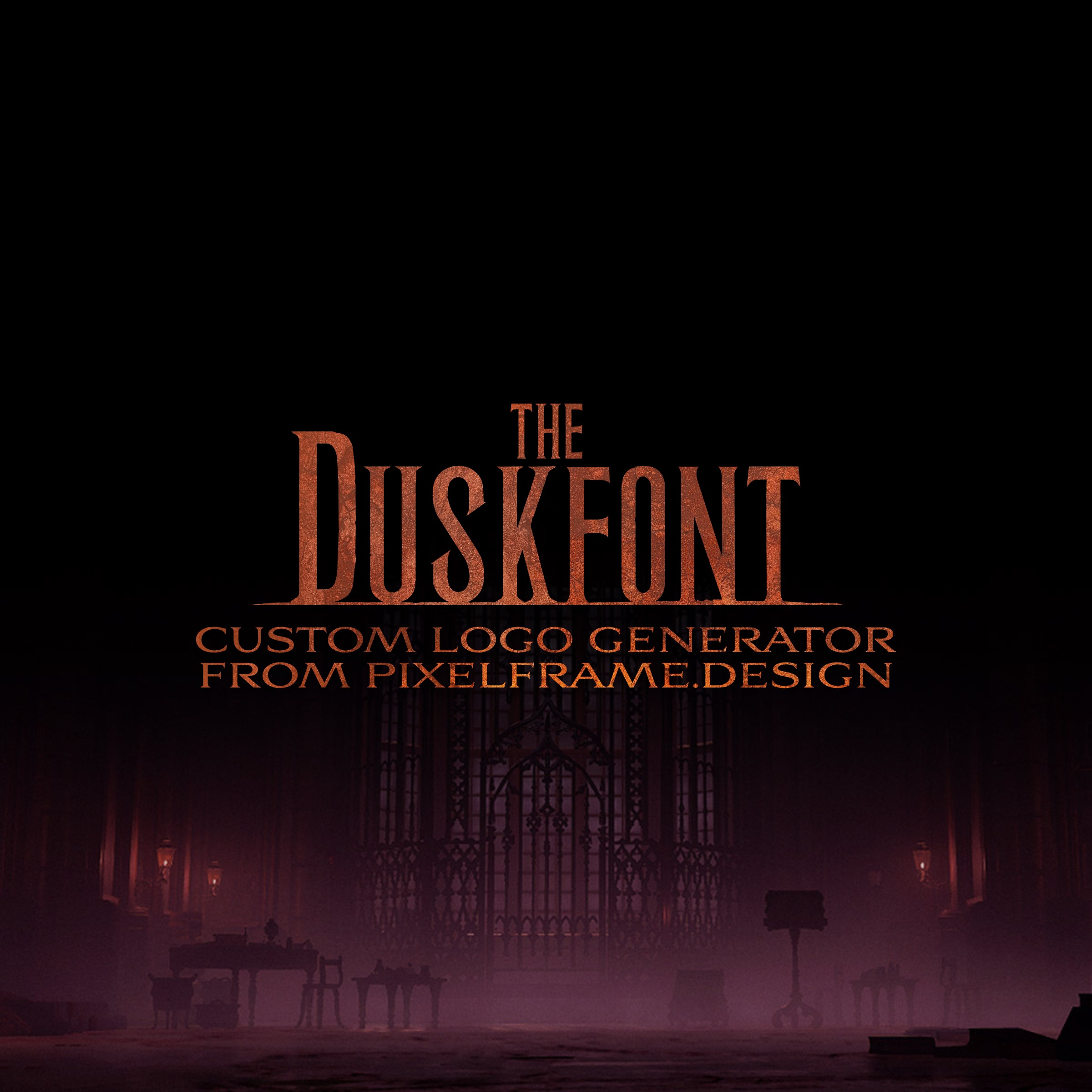
It’s not Bloodborne 2, but this The Duskbloods Font & Logo Generator is the Next Best Thing
In true From Software fashion (in keeping with Elden Ring and Dark Souls), the logo for the upcoming video game The Duskbloods is a gothic, serif-style wordmark with a distressed/grunge texture within the letterforms. It may not be a groundbreaking motif, but it works – and the only way to properly do it justice here was with a completely new custom-built font. Choose from multiple background options, and use authentic styling inspired by the game’s art to create your own version of The Duskbloods logo (using any custom text or phrase you can think of).
The Duskbloods font and logo generator recreates the aged, blood-rusted title treatment FromSoftware built for its first Nintendo Switch 2 exclusive. Three text inputs control the wordmark — a small line above the title, the main title itself, and a smaller line below it — all clipped from the same weathered texture and finished with a tapered underline that stretches to match whatever title is entered. Enter a title, a subtitle, or a full three-line lockup, and the generator handles the sizing, the texture, and the layout automatically.
How the Duskbloods generator works: a layer-by-layer breakdown
The wordmark is built from five separate passes rather than one flat font: a background image, the main title, a smaller line above it that tucks into the title's first letter, a stretched underline, and a smaller line below. Every one of those text pieces is clipped from the same rusted texture image rather than filled with a flat color, so the grain reads as one continuous surface across the whole design rather than several mismatched layers. Each sample below renders live using the same drawing logic as the generator itself, with the demo text "The Duskbloods."
Layer 1: The background
Five background options ship with the generator, each pulled from the gothic Victorian and steampunk world FromSoftware built for the reveal trailer — a castle exterior, a character portrait, an emblem, a cathedral interior, and a plain black backdrop. The layout of the text stays identical across all five; only the image underneath changes.
Layer 2: The main title
The title text is clipped from a scanned, rust-textured image rather than filled with a solid color. A black silhouette of the words is drawn first, then the texture is composited into that silhouette using canvas's source-in blend mode, so only the pixels inside the letterforms pick up the grain. The same texture crop is reused for every other text element and the underline, which is what keeps the whole logo reading as one surface instead of several mismatched layers.
Layer 3: The top line
A smaller line sits above the title, sized and positioned relative to the title's own first letter rather than a fixed spot on the canvas. It's deliberately pulled down far enough to dip slightly behind the top of that first capital, closing the gap the way the reference wordmark does instead of floating above it with visible daylight in between.
Layer 4: The underline
A single tapered vector shape spans beneath the title, stretched horizontally to match the width of whatever text is entered — roughly 115 percent of the title's own width, tapering to a point at each end. Because it's stretched rather than redrawn, the same shape works whether the title is four letters or fourteen.
Layer 5: The subtitle line
A third, smaller text line sits below the underline in its own typeface, reserved for a release window, a tagline, or a second word — "Coming 2026" in this case. Like the top line, it's clipped from the same texture crop as everything above it.
Layer 6: The finished graphic
A soft drop shadow is added behind every text element as the final pass, giving the whole wordmark some lift off the background. That shadow only appears on the standard JPEG output — transparent PNG downloads skip it, since a shadow reads as noise once the background is removed.
The generator supports any combination of the three text fields — a title alone, all three lines together, or a top-and-bottom pairing without a main title — and automatically shrinks the whole layout if a long entry would otherwise run past the edge of the canvas. Five background options and a member-only transparent PNG export round out the tool, useful for wallpapers, fan art headers, or a title card built around a different name entirely. The same rusted, tapered treatment that defines the reveal trailer's own logo carries over regardless of what's typed in, down to the underline that stretches or narrows to fit. It's a style built for a title still mostly defined by trailers and a handful of network-test impressions rather than a finished release, which makes a flexible generator more useful than a one-size wordmark — the layout holds up whether the input is the game's own name, a Bloodsworn character build, or something else entirely.